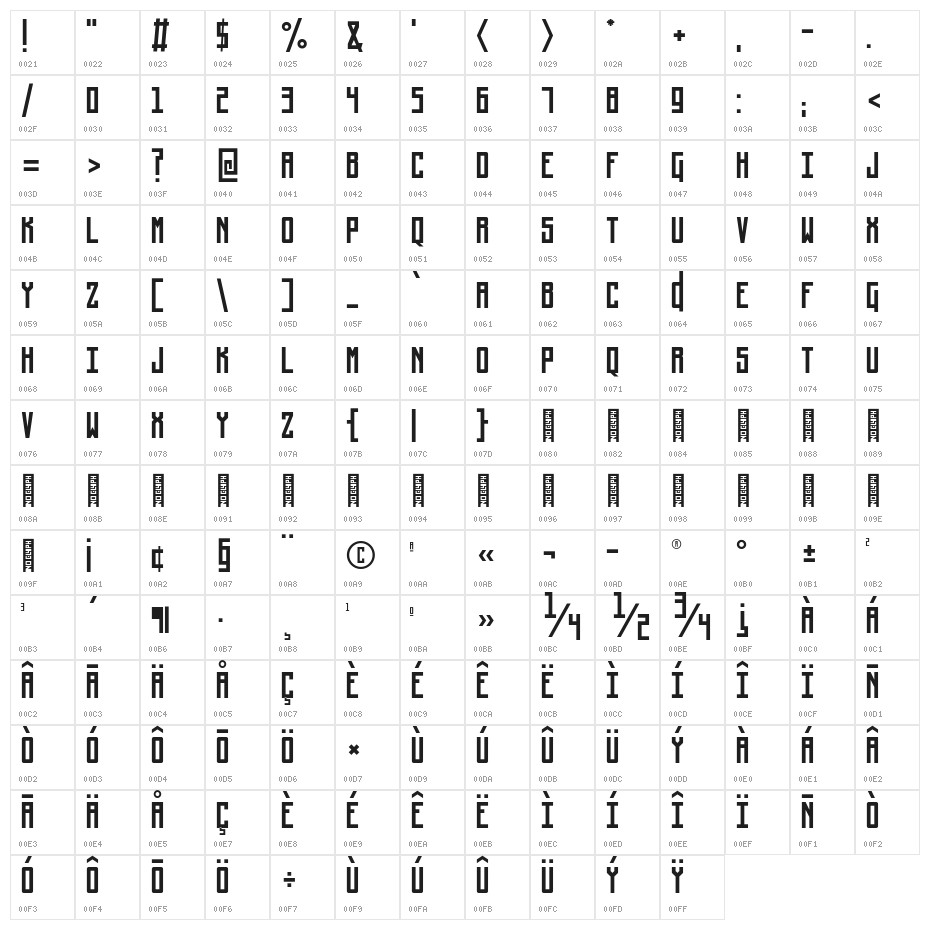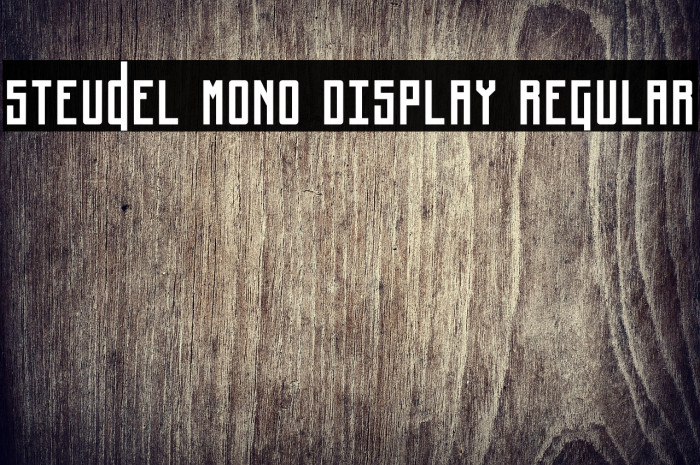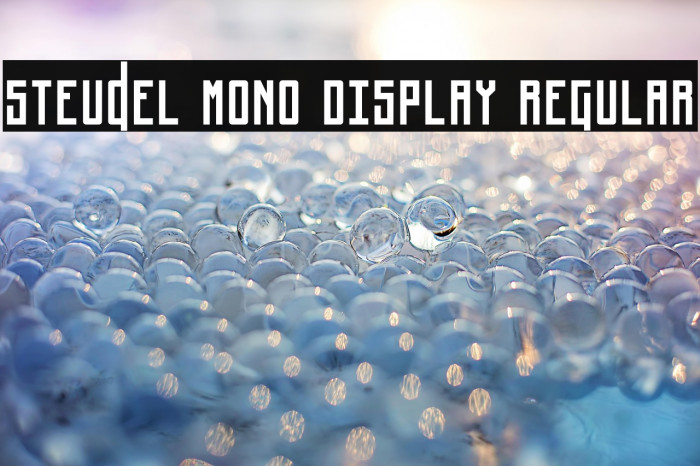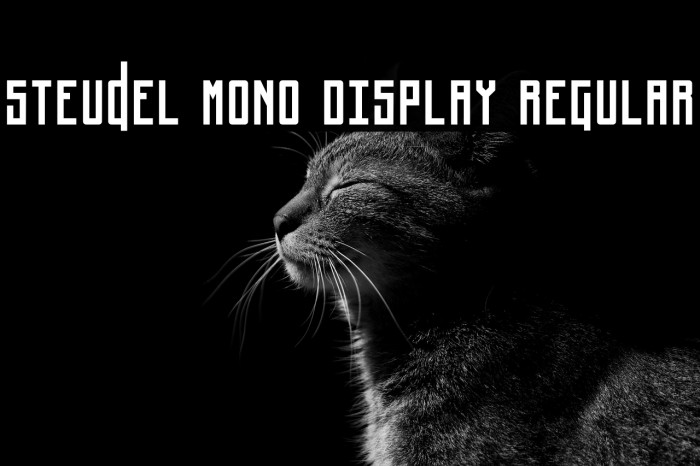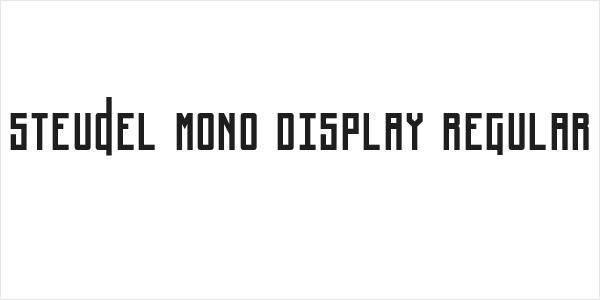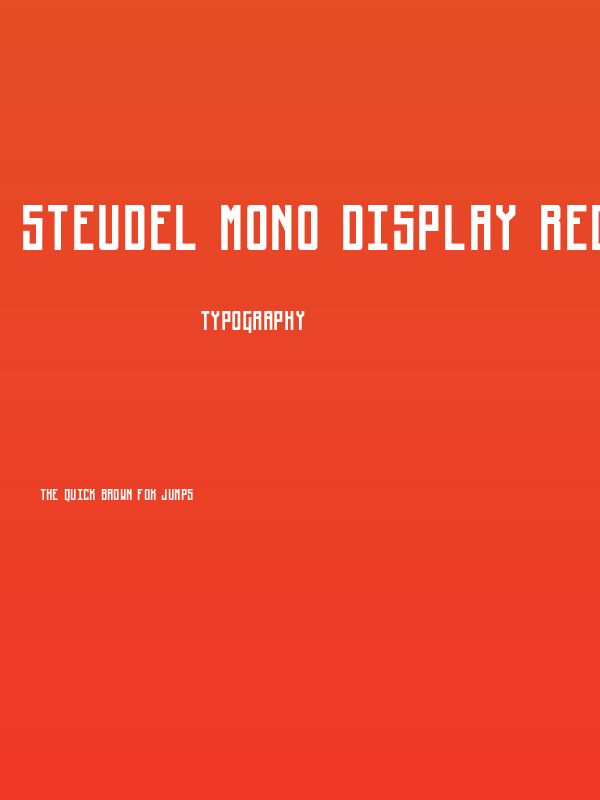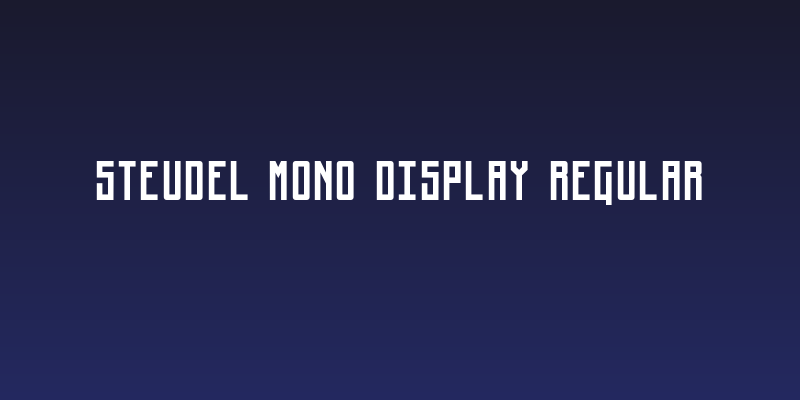
Steudel Mono Display Regular Font
Steudel Mono Display Regular Description
This font features a bold, geometric design with a monospaced structure, giving it a modern and industrial feel. The characters are uniformly spaced, creating a consistent and orderly appearance. The angular shapes and straight lines contribute to its mechanical aesthetic, making it suitable for technical or futuristic themes. The uppercase and lowercase letters maintain a uniform height, enhancing readability and balance. The numerals and special characters are designed with the same precision, ensuring a cohesive look across all text elements.
| Use Case | Headlines, Logos, Coding |
| Proposed Projects | Ideal for coding environments, technical documentation, futuristic branding, and digital interfaces. |